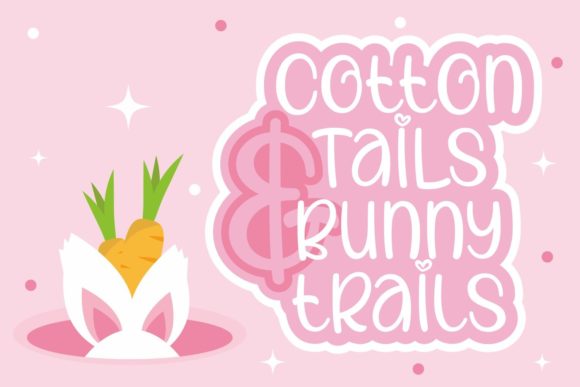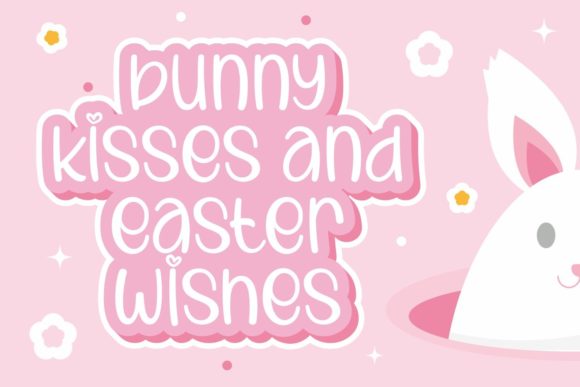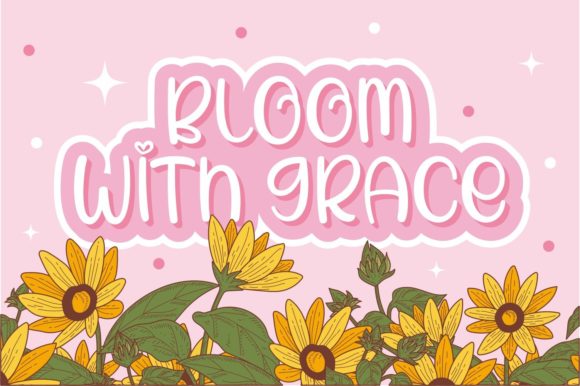
Introduction to Mikey Pinky Font Font
Fonts play a crucial role in design, and the Mikey Pinky Font font is a typeface that brings both character and versatility to any project. Whether you’re working on a branding project, a website, or a print design, the Mikey Pinky Font font offers a unique style that can elevate your work.
Mikey Pinky is a lovely handwritten font that embodies playfulness and charm in every character.
Use it to create outstanding designs .
Key Features of Mikey Pinky Font Font
Why Choose Mikey Pinky Font Font?
The Mikey Pinky Font font is more than just a typeface – it’s a design tool that helps you communicate your message with style and clarity. Its unique character set and versatile design make it suitable for a wide range of applications, from elegant invitations to bold headlines.
With its carefully crafted letterforms and balanced proportions, the Mikey Pinky Font font ensures readability and visual appeal across all mediums.
What makes Mikey Pinky Font font special?
The Mikey Pinky Font font stands out with its unique design, exceptional readability, and versatility across various design applications.